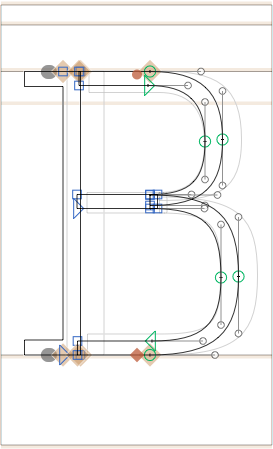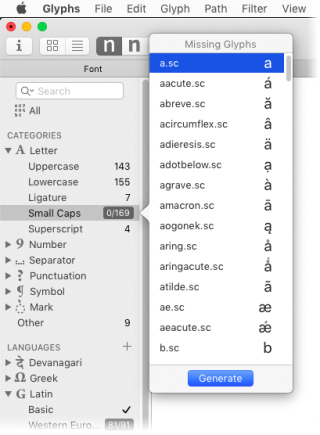
Making small caps
So, you’ve finished all your uppercase glyphs, and you are on a roll? Here’s how the software can generate small caps from your uppercase.
Duplicating and renaming
Glyphs employs a special naming scheme for small caps: a lowercase name plus the suffix .sc. Alternatively, there are the suffixes .smcp for lowercase to small caps, and .c2sc for uppercase to small caps.
First of all, you need to duplicate all the letters you want small caps for. Generally, that would be all uppercase letters which do not consist of components. You can easily filter them by clicking on the gear icon in the bottom left corner in the Font view, and selecting Add Smart Filter. Then, select Count of Paths, is greater than and enter 0:
Now, select your filter and Letter > Uppercase at the same time by holding down Cmd while selecting. That will give you all uppercase letters without components.
If your design requires it, don’t forget about small caps variations for figures, punctuation and marks. In this example, we will stick with uppercase letters. Select all your chosen letters and go to Glyph > Duplicate Glyph (Cmd-D). Now, all the duplicated glyphs have the suffix .001:
Now, you need to rename them, because small caps have the suffix .sc. But, you don’t have to rename them one by one. Just select all your .001 glyphs and press Shift-Cmd-F, or go to Edit > Find > Find and Replace. Enter .001 in the Find box, .sc in the Replace box, and press Replace:
To easily toggle the names of your glyphs from uppercase to lowercase, simply use the Make glyph names lowercase script in the Glyph Names folder of mekkablue’s scripts (for Glyphs 3, click here to install them directly via the Plugin Manager). It automatically changes the names of selected glyphs to lowercase.
Or, for the geeks amongst you, there’s a cooler, built-in way to do it. You can do both renaming steps (adding the suffix and lowercase) at once with this little trick:
Again, select your glyphs, go to Edit > Find > Find and Replace (Shift-Cmd-F) and enter (.*)\.001 in the Find field. The (.*) means any number of any characters, and \.001 means a literal dot, followed by ‘001’. Then, in the Replace field, enter \L\1.sc. \L turns anything that follows into lowercase, \1 stands for the first expression in parentheses, in our case (.*). And .sc is our preferred name suffix for small caps. This time, you also have to check Regex, which means Regular Expressions, which in turn are these funny dots, asterisks and parentheses that mean something. Super easy!
Scaling and fine tuning
Well, it’s not really small caps if it isn’t small. So, you need to ‘scale’ your glyphs, but keep the stem width intact at the same time. Again, you don’t have to do that all manually. If you have more than one master on the weight axis, you can use the RMX Scaler feature of Tim Ahrens’ Font Remix Tools. But they actually do much more than just scaling: The RMX Scaler tries to preserve your stem width, which is what we want for small caps. But RMX cannot guess your stem width, so you need to define a horizontal and vertical stem width for every master in Font Info > Masters (Cmd-I).
Then select your prospective small cap glyphs in Font or Edit view, run Filter > RMX Scaler, and enter values that make sense for your design:
Every column represents one master. When you place your cursor in a column, RMX Scaler will switch the Edit view to the respective master, so you always get a good preview of what you are doing. You’ll probably want your Width value to be higher than your Height value, and the height of your small caps a little above the x-height. You can also change the stems’ Weight by specifying a unit value by which your outlines will be expanded. That is, in case your small caps appear too thin, which sometimes happens in small caps, at the end of the spectrum. Usually, small caps also need a little more spacing. Enter a unit value in the Adjust Spacing field. The Vertical Shift field is for superscript glyphs, so you can ignore it here.
Remember that while RMX is a great help, and it will get you very far in one step, it won’t give you finished small caps. You will still have to do some fine-tuning manually.
So, this is what we achieved so far:
Small-cap height
You have an x-height and a cap height in your metrics, so you should also have a small cap height. There are different ways to get this done depending on which version of Glyphs you are using.
Adding a small-cap height in Glyphs 3
Go to Font Info > Masters > Metrics, and add a new metrics entry by clicking on the plus button next to the Metrics heading:
A dialog sheet will prompt you for all the things we need to know. Make sure that as Metric Type, you choose x-Height. That is because our small-cap height is supposed to replace the x-height in small-cap glyphs:
The Name is arbitrary, I picked ‘smallcaps’. Pick whatever you like. And most importantly, in Scope, you decide in which glyphs the metric should be displayed. In our case it is easy: set the Scope to all glyphs where the Case is Smallcaps.
So, if you have done everything right, your Metrics section will now also have a new entry for small caps:
The metric entry is automatically synced across all masters. What you still have to do though, is to set the value, the actual height in font units. Typically, this will be a bit above the x-height. In my example, I pick 530, which is 50 units above the x-height of 480.